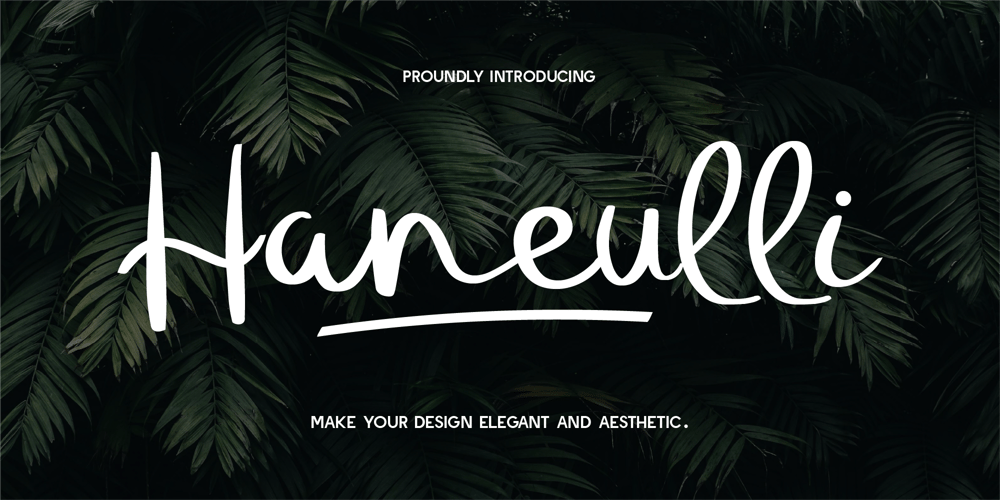
Haneulli Font Family was designed by Gilang Mei Nugraha, Frederik Aristaputra and published by Creatifont Studio. Haneulli contains 3 styles and family package options. Haneulli is a charming handwritten font that beautifully blends a casual and elegant vibe. The smooth, flowing curves of each letter create a sense of natural rhythm, making the font feel approachable and friendly while maintaining an air of sophistication. Its versatility shines through in the balance between playful loops and clean lines, ideal for projects that need a touch of personality without sacrificing elegance. Whether used for branding, invitations, or any creative work, Haneulli’s effortless style brings a sense of warmth and refinement to your designs.A SUMMARY OF WHAT’S INCLUDED: Standard Character A-Z, a-z, 0-9, Punctuation & symbols Regular, Italic and Bold Style Multilingual Support Include All Alternates and Ligatures Works on PC & Mac Simple installation Accessible in Adobe Creative Suite (Ai, Ps, Id, etc.) even work on Microsoft Word. PUA Encoded Characters – Fully accessible without additional design software. 🌟If you come across any issues or notice anything we might have overlooked while using this product, please feel free to reach out to us. We greatly value your feedback as it helps us enhance and refine our products. Thank you!